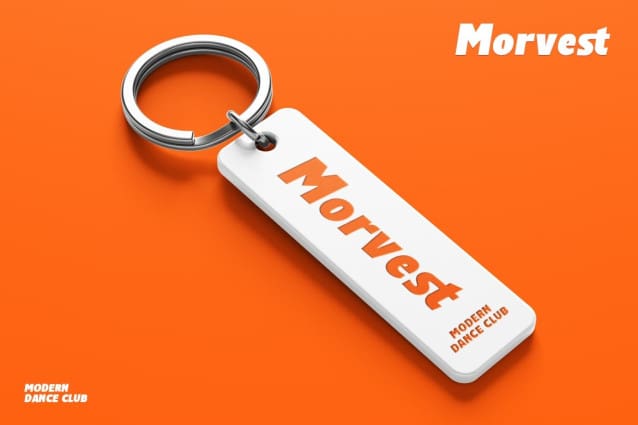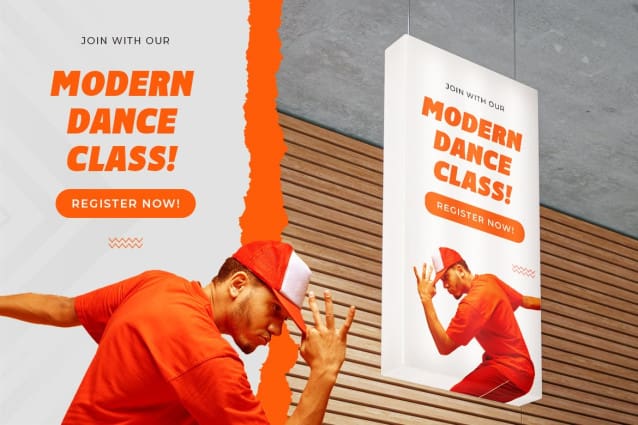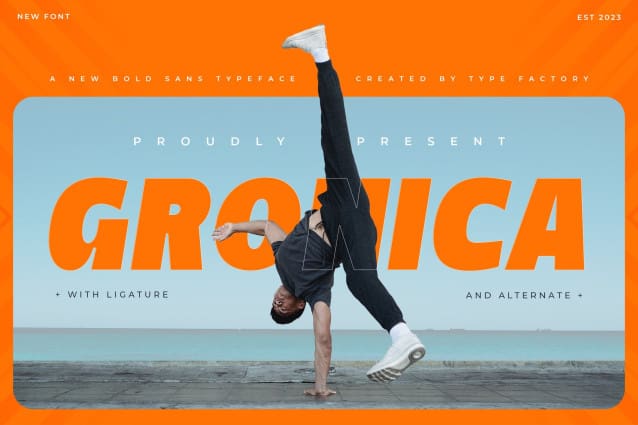
Gronica Font
Gronica Font is a bold sans serif font that brings strength and clarity to each letter. Its strong geometric shapes and clean lines make it ideal for headlines, logos, posters and impactful branding that demands attention. Gronica combines modern design with a powerful presence, ensuring your message is delivered with confidence and style. Ideal for both print and digital applications, this font offers versatility while maintaining a bold and striking aesthetic that stands out in any setting.